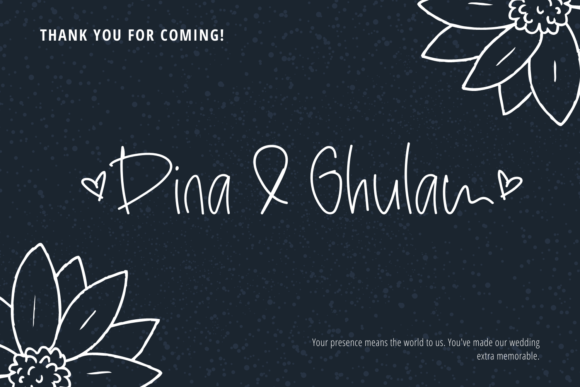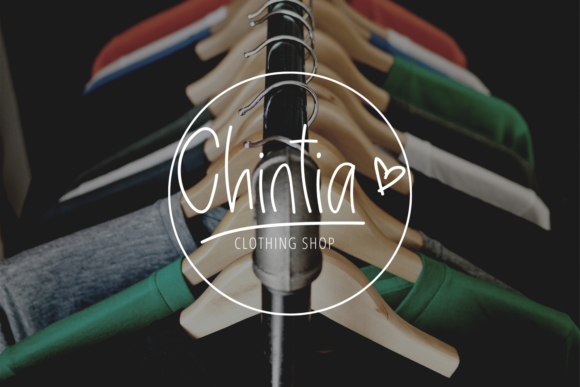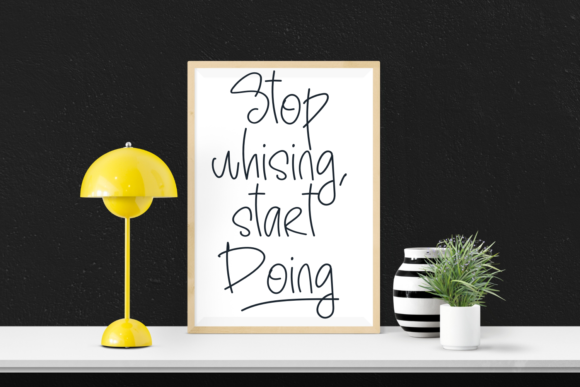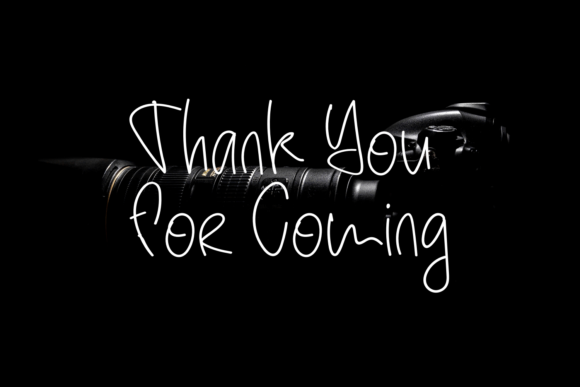
Have you ever stared at a blank page, waiting for inspiration to strike? That’s exactly what happened to me last week when I was brainstorming ideas for a friend’s wedding invitation. I wanted something that would capture the essence of their love story, something that would make their guests feel special and connected to the couple. That’s when I stumbled upon the Balimar Font – a delicate, handwritten masterpiece that stole my heart.
Balimar Font is more than just a font; it’s a versatile tool that can elevate any design project. Whether you’re creating beautiful stationery art, eye-catching social media posts, or gorgeous wedding invitations, this font is sure to add a touch of elegance and sophistication. As a designer, you’ll appreciate the countless ways to style and customize Balimar Font to fit your unique vision.
Key Features of Balimar Font
- Font Family: Balimar Font comes in a range of weights and styles, including Light, Regular, Medium, Bold, and Extra Bold.
- Character Count: The font includes a wide range of characters, including Latin, Cyrillic, and Greek alphabets, making it suitable for multilingual projects.
- Unique Characteristics: Balimar Font features a unique blend of modern and vintage elements, making it perfect for creative and artistic projects.
Review of Balimar Font
I recently had the chance to work with the Balimar Font, and I’m excited to share my thoughts on this unique and eye-catching typeface.
- The Balimar Font is incredibly versatile, suitable for a wide range of design projects, from digital interfaces to print materials.
- The font’s modern and minimalist aesthetic makes it perfect for clean and simple designs.
- The Balimar Font is highly legible, even at small font sizes, making it ideal for body text and other content-heavy elements.
- The font’s custom characters and ligatures add a touch of sophistication and personality to designs.
- The Balimar Font may not be the best choice for designs that require a more traditional or classic look.
- The font’s unique character set may not be compatible with all operating systems or devices.
- The Balimar Font can be quite bold and attention-grabbing, which may not be suitable for designs that require a more subtle approach.
Overall, I’m impressed with the Balimar Font’s unique features and versatility. While it may have some limitations, it’s definitely a great addition to any designer’s toolkit.
The Balimar Font is ideal for:
- Creating modern and minimalist designs.
- Adding a touch of sophistication to business materials.
- Designing digital products and interfaces.
Alternatives to Balimar Font
Montserrat is a sans-serif font designed by Julieta Ulanovsky. It is a popular choice for designers due to its modern and sleek appearance. Montserrat is ideal for use in digital products, particularly in apps and websites, where a clean and minimalistic look is desired.
Compared to Balimar Font, Montserrat has a more geometric and structured design, making it suitable for use in headings and titles. Montserrat is also more versatile and can be used in a wide range of applications, from print to digital media.
Open Sans is a modern sans-serif font designed by Steve Matteson. It is a highly legible font that is suitable for use in digital products, particularly in websites and apps. Open Sans is ideal for use in body text, as it is easy to read and understand.